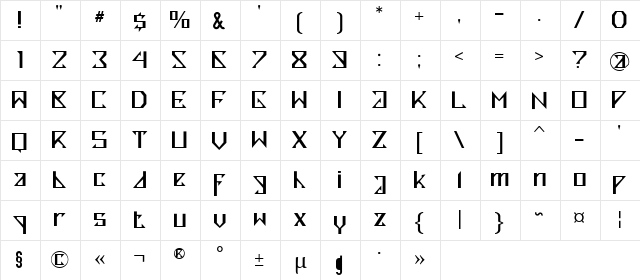
ZEDJ Regular
| Foundry | Nikola Kovanovic, |
| Designer | Nikola Kovanovic |
Design Context for ZEDJ Typeface
ZEDJ is a composed and adaptable typeface that performs quietly and consistently across a wide range of design contexts.